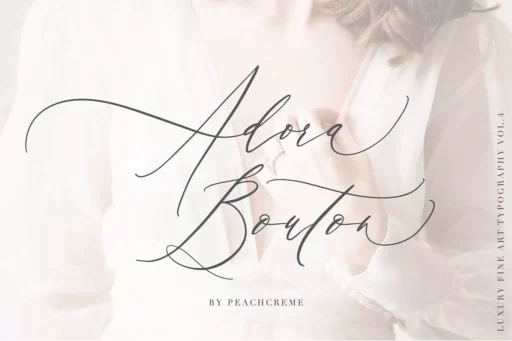
Adora Bouton Font
Adora Bouton is a highly stylish modern calligraphy font by Peachcreme with a number of today’s sophisticated appearances. It is ideal for branding, wedding invitations and cards, and even red wine labels.
This font contains a full set of beautifully designed uppercase and lowercase letters, numerals, different types of punctuation marks and ligatures. All the lowercase letters have beginning and ending swashes, thus mimicking a handwritten font well. In addition, there are starting swashes for all the uppercase letters giving the font a great look.
Adora Bouton Font is a Script And Handwritten font that brings a professional and versatile look to your projects. Adora Bouton is a highly stylish modern calligraphy font by Peachcreme with a number of today’s sophisticated appearances.